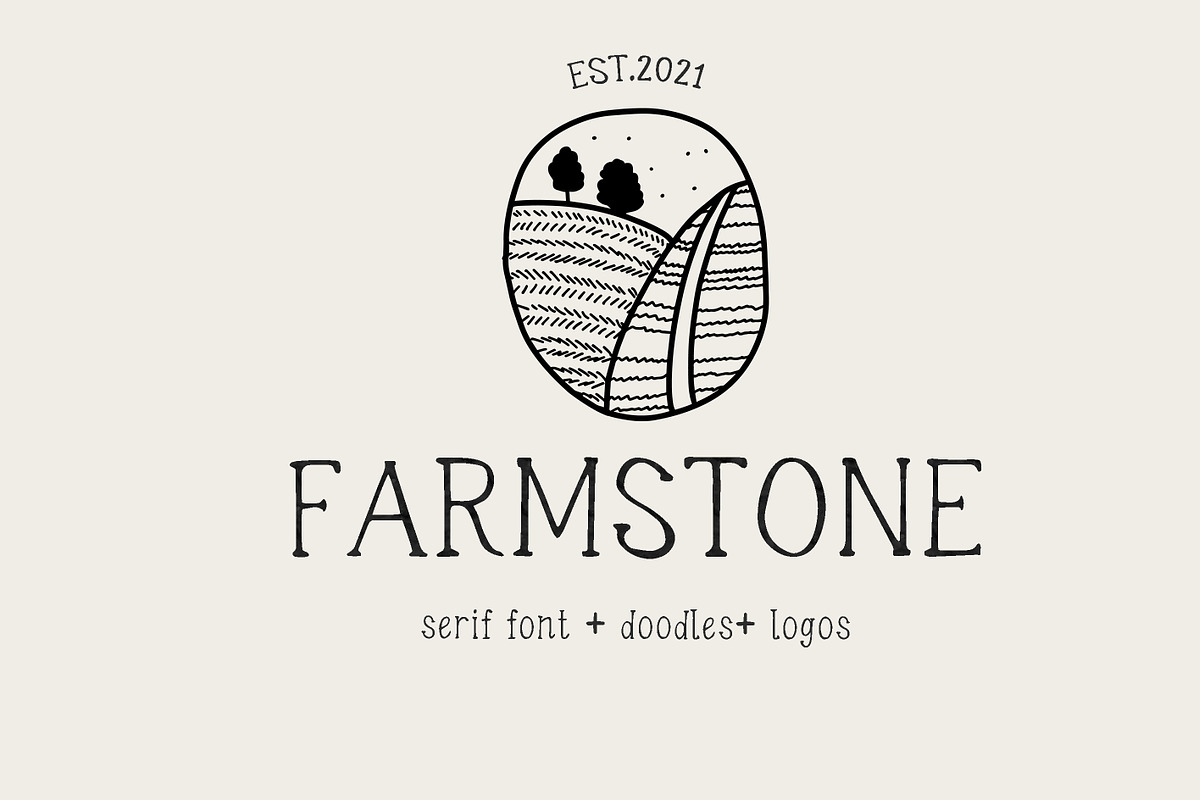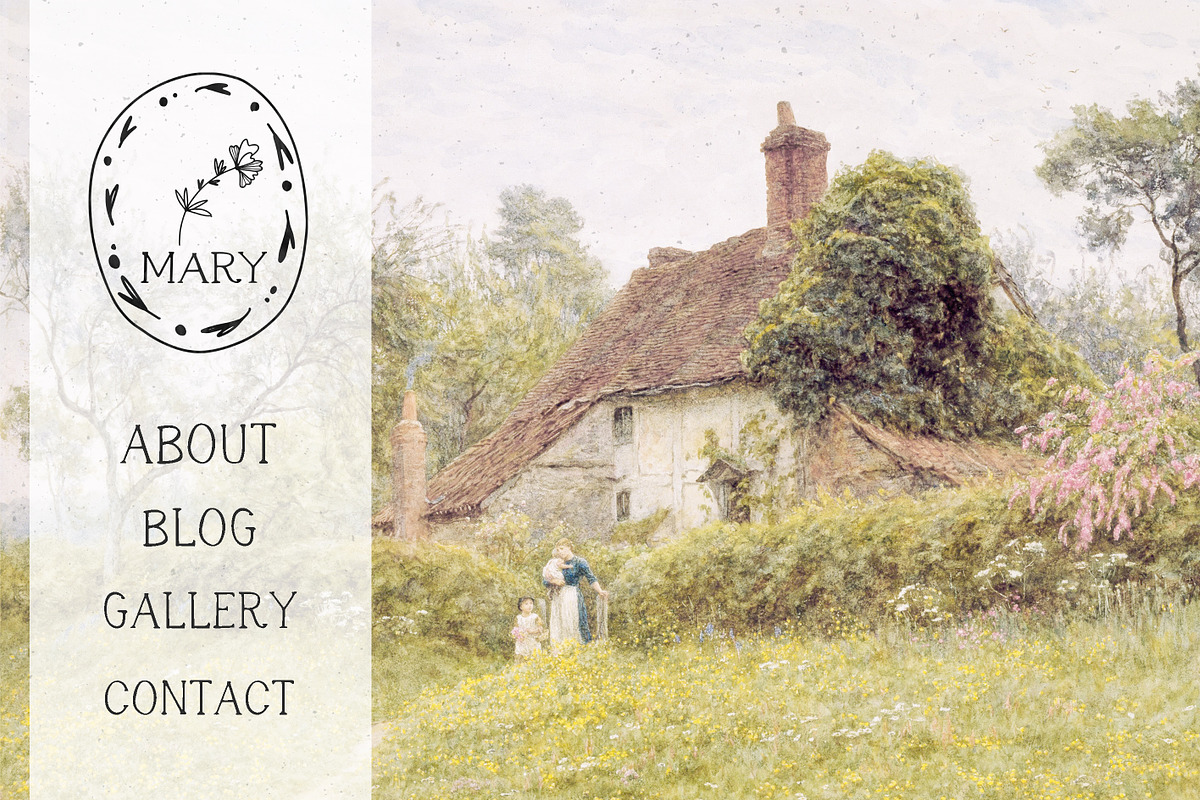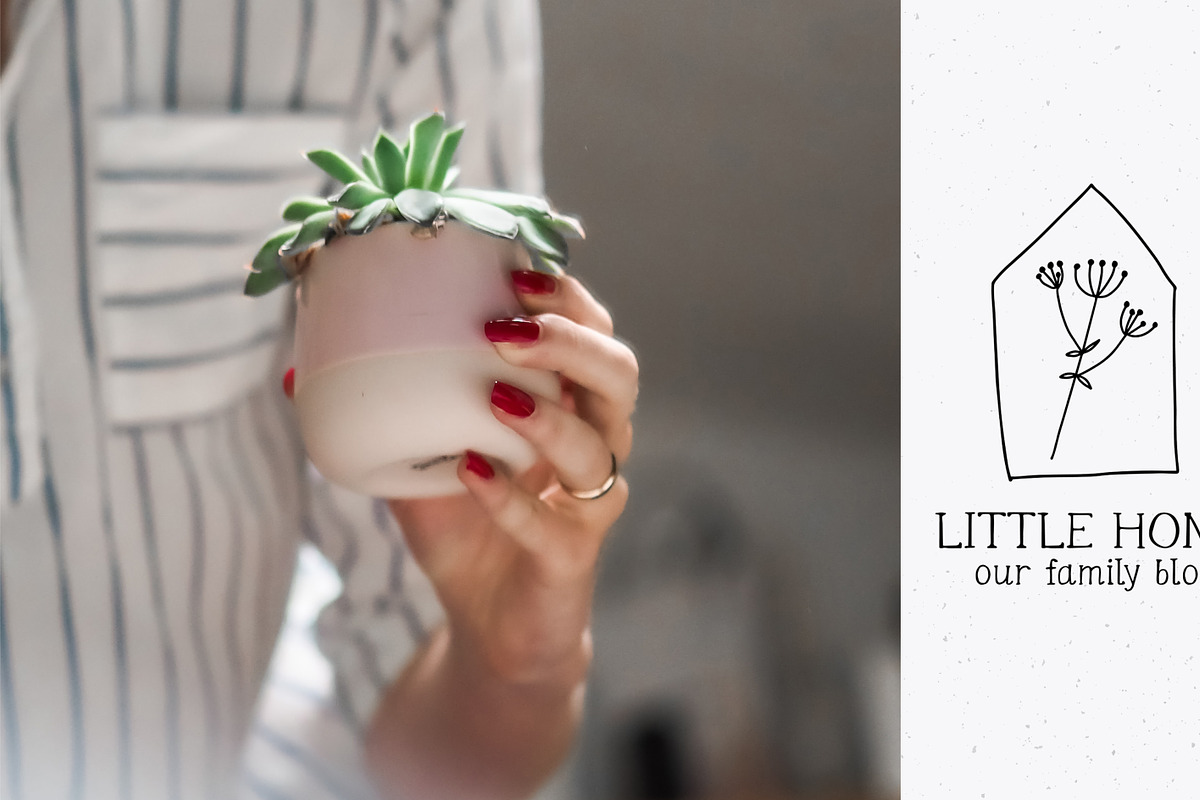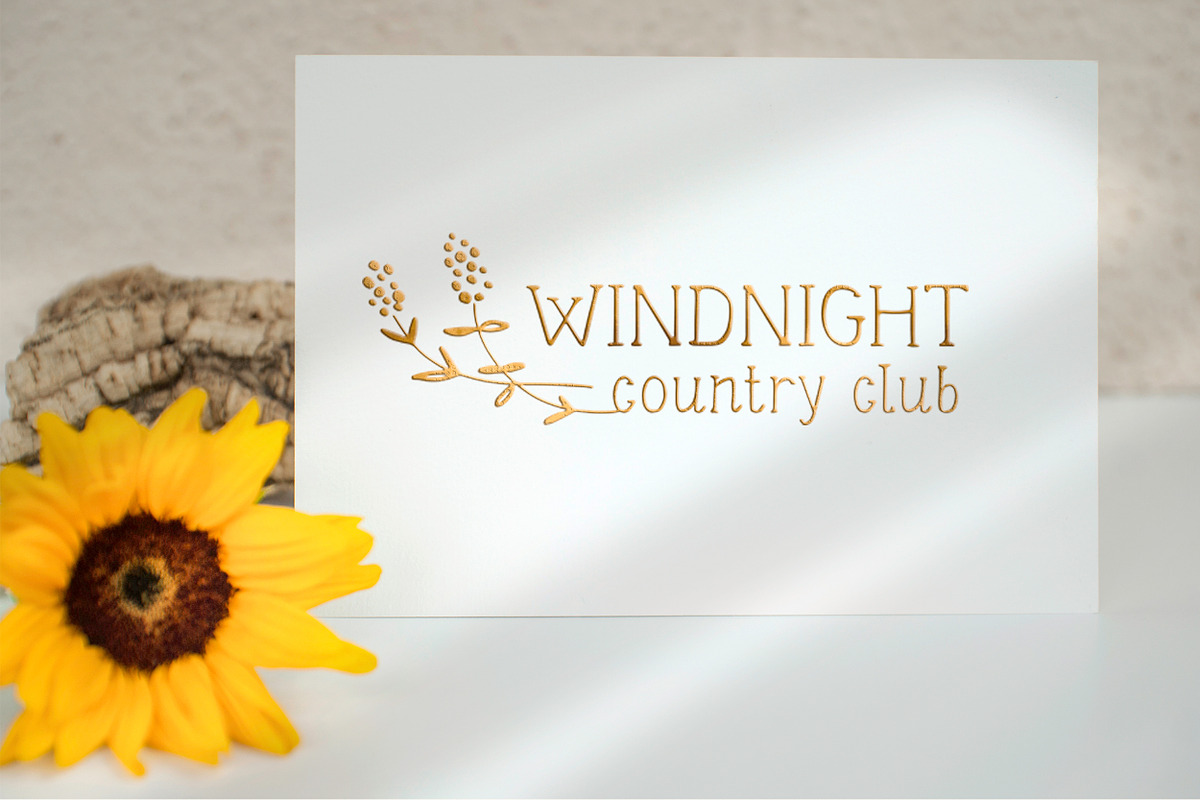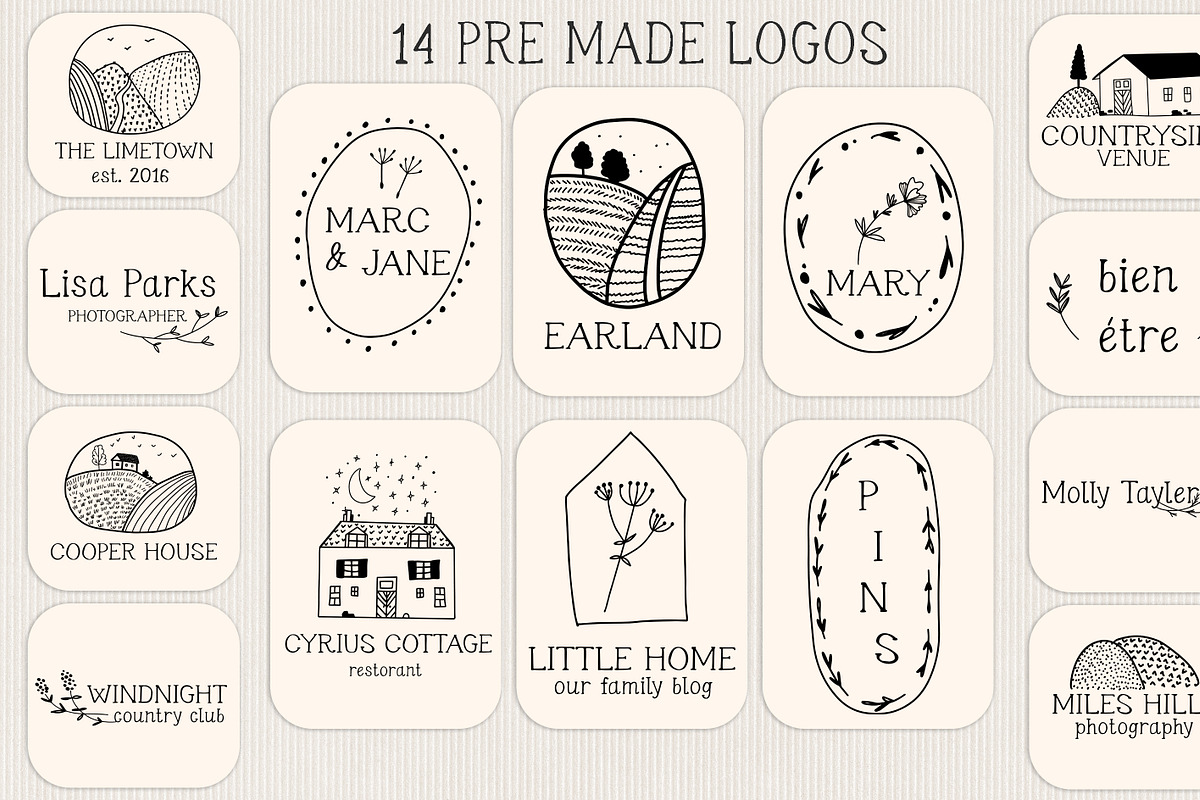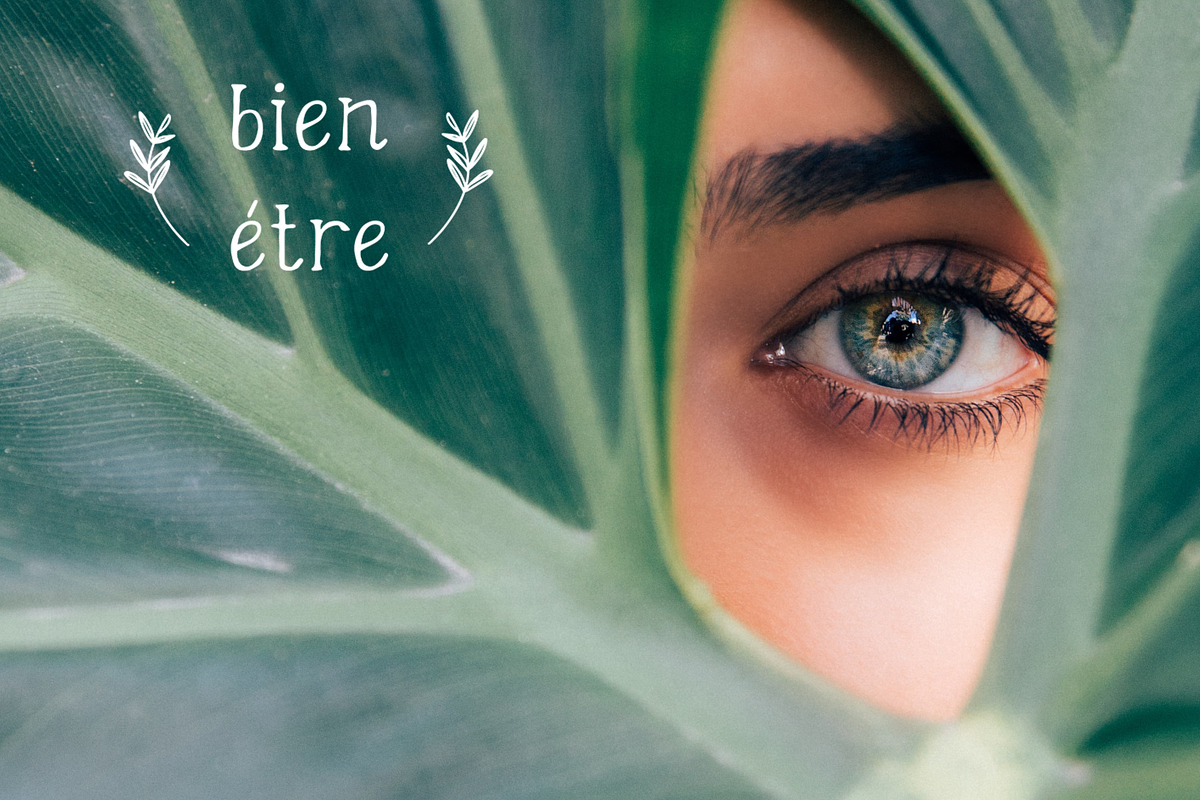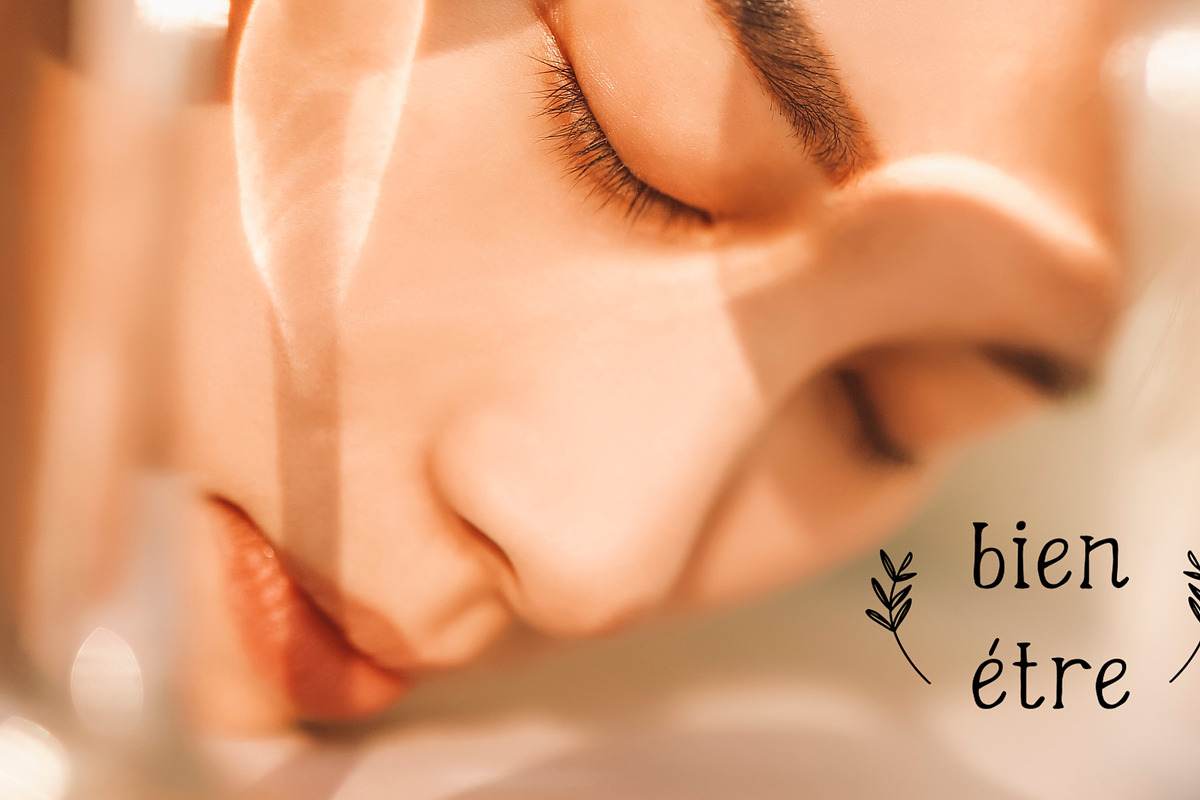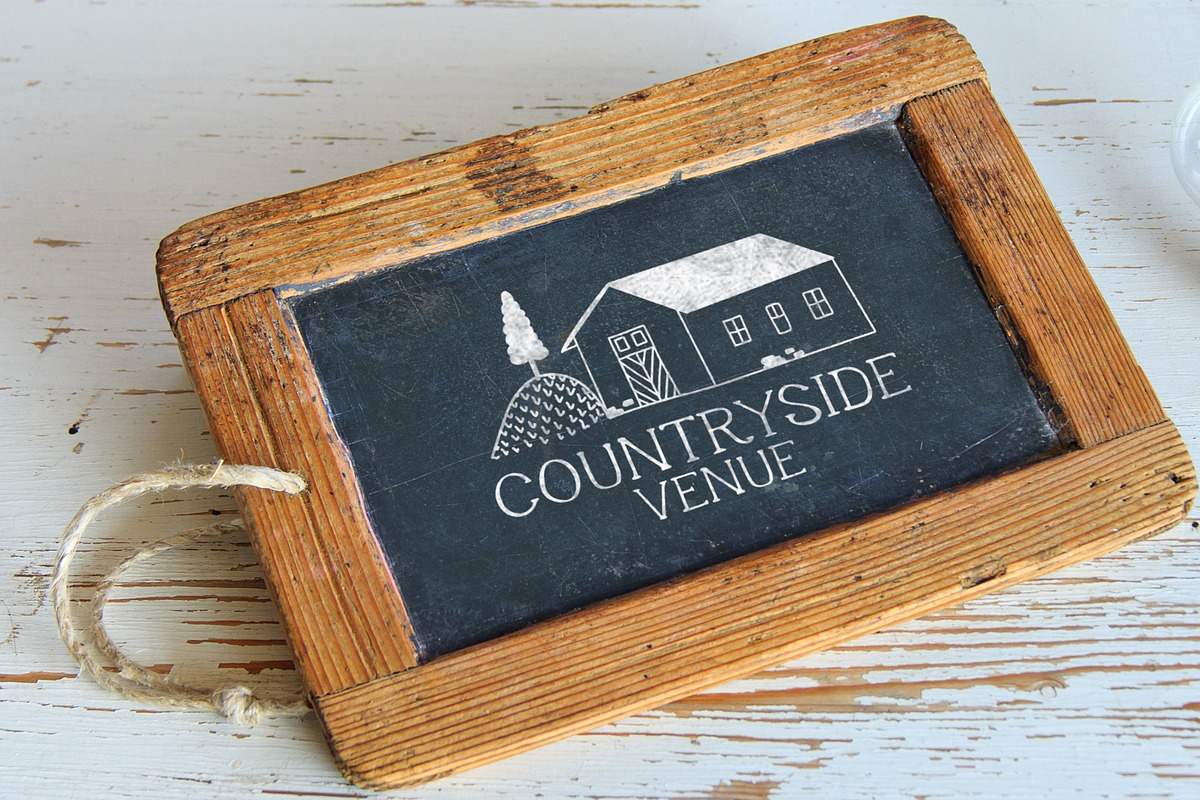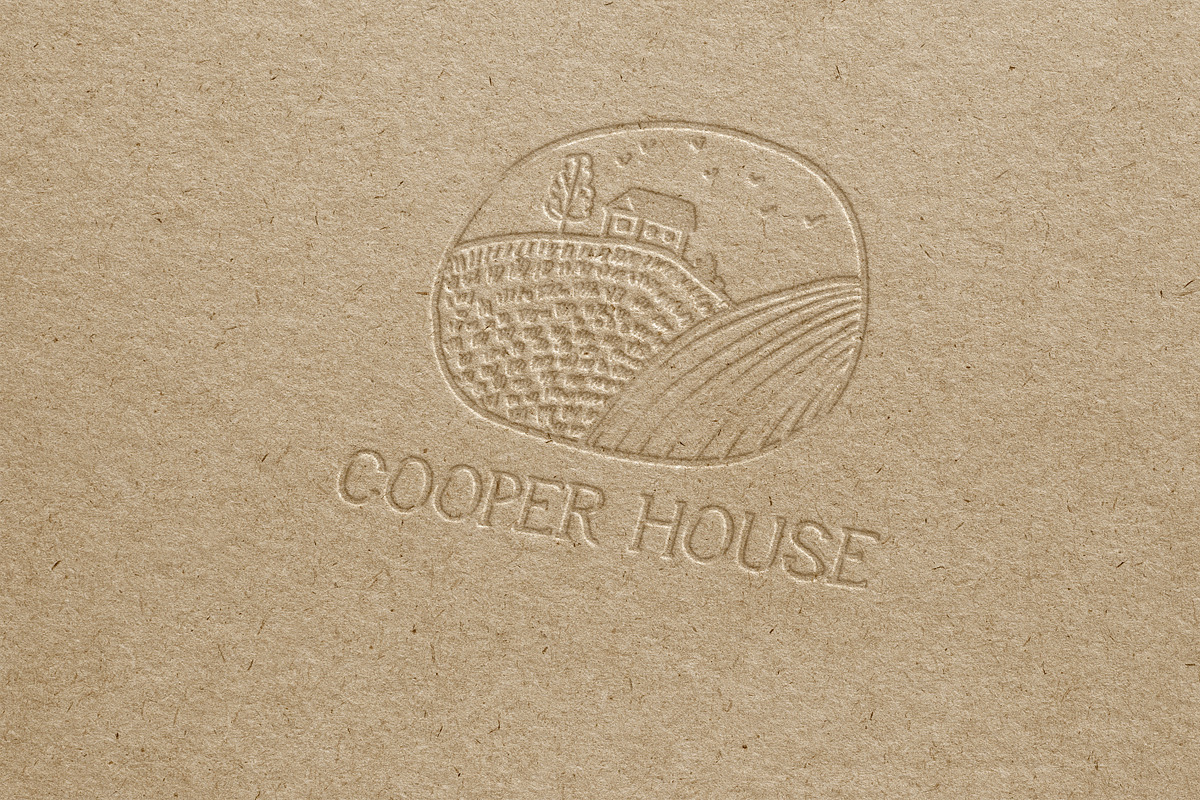
Farmstone Rustic serif font. Doodles
Farmstone Rustic Hand Written Font. +40 Countryside style Doodles and 14pre-made logos SERIF font. You will receive: Farmstonefont (OTF, TTF, WOFf, WOFF2 )- A farmhouse style serif font, languages support. 40 PNG Hand-Illustrated Farmhouse Doodles and all in 1 in Vectors (AI & EPS) 14 Easily-Editable Logos (AI & EPS) - You will need vector-editing software to use these. The logos can NOT be edited in Photoshop, or PS Elements. You will need a copy of Illustrator or Inkscape to properly edit the vectors and logos. To avoid any font substitution problems, just install all the font files BEFORE you open the AI/EPS files. Please don't just resell the logos as your own. If you need my assistance or have some questions, please feel free to send me a conversation.